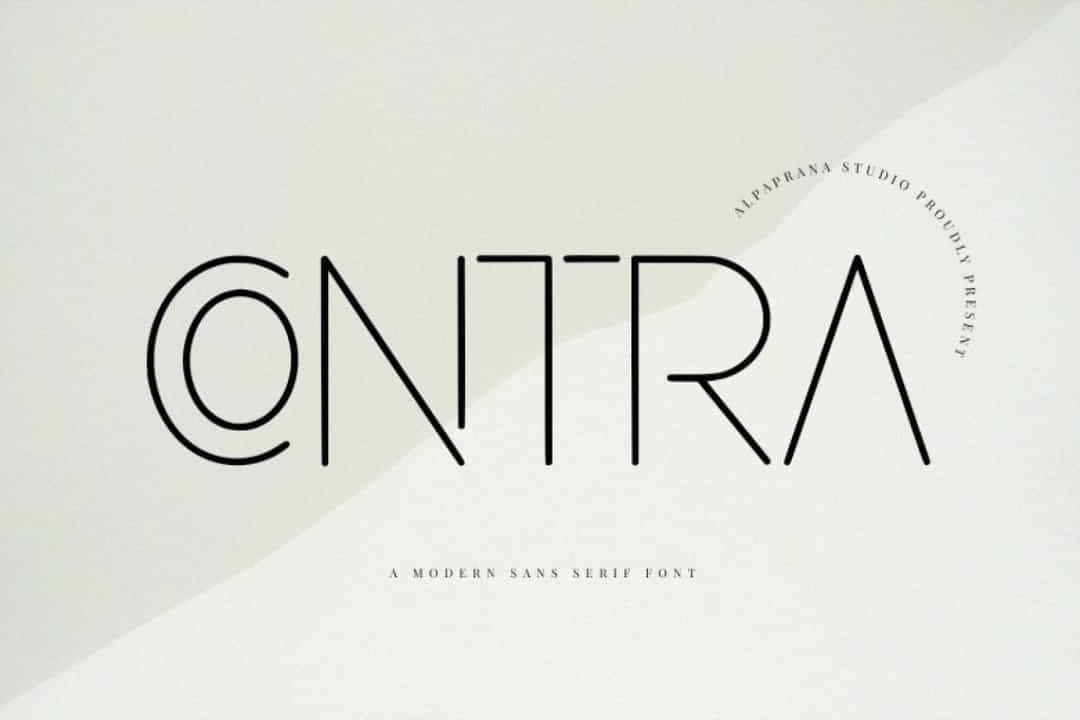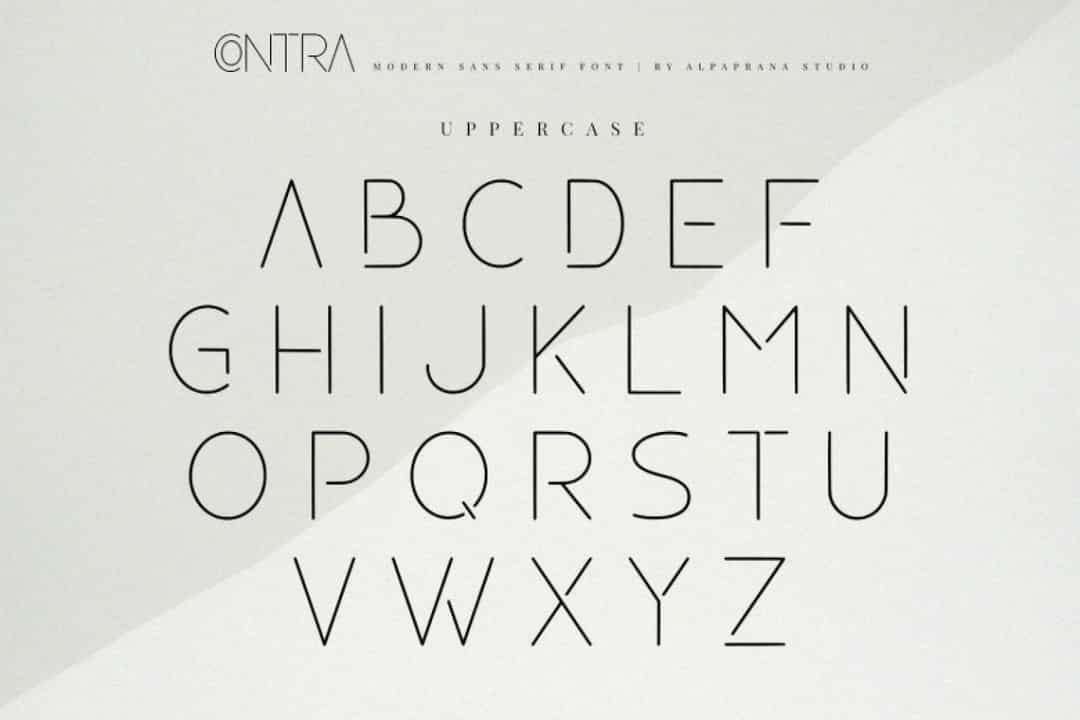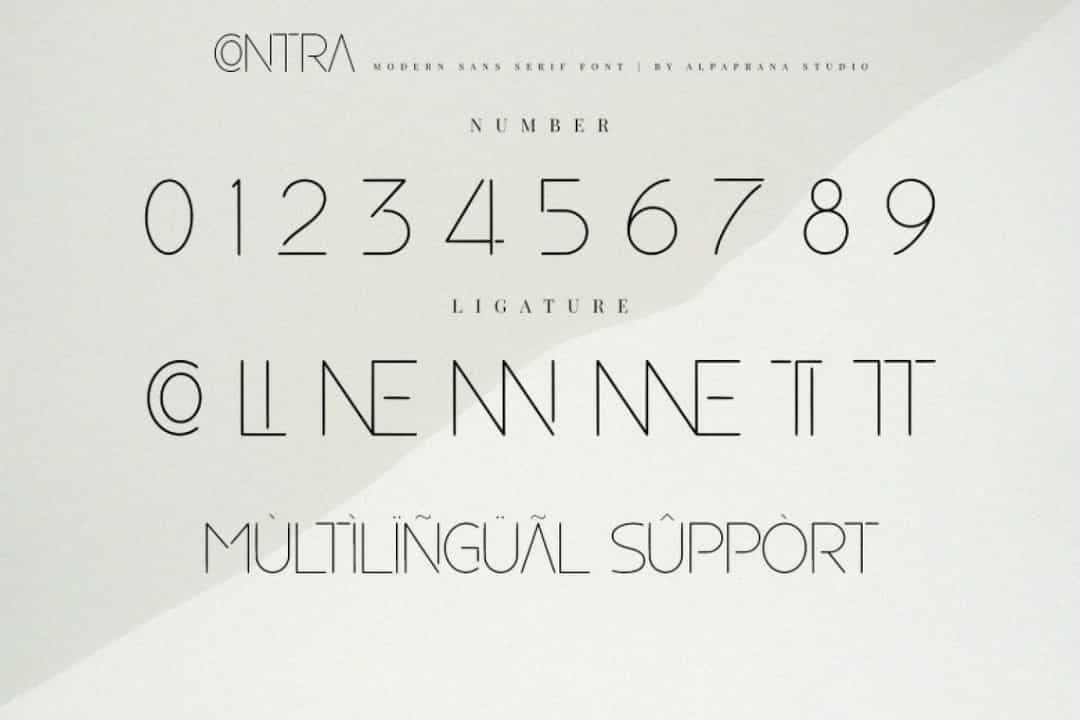
Contra is a contemporary sans serif font with an organic and casual aesthetic, making it suitable for branding, logo Design and lettering projects, clothing posters, magazines packaging bags for shopping, posters T-shirts book covers photography as well as various events or design projects.